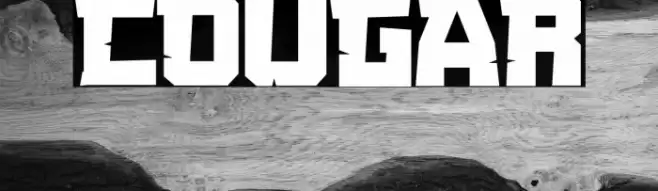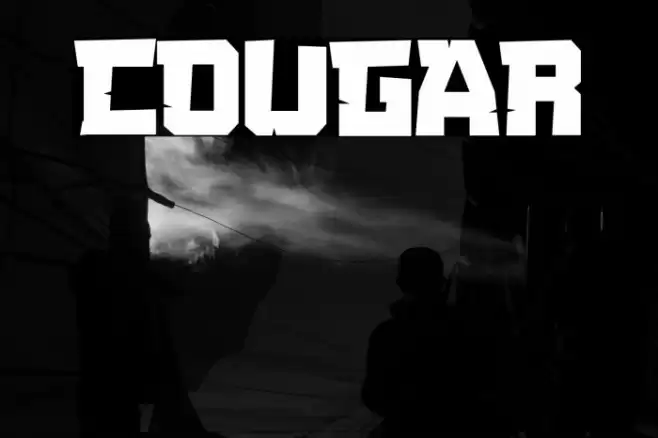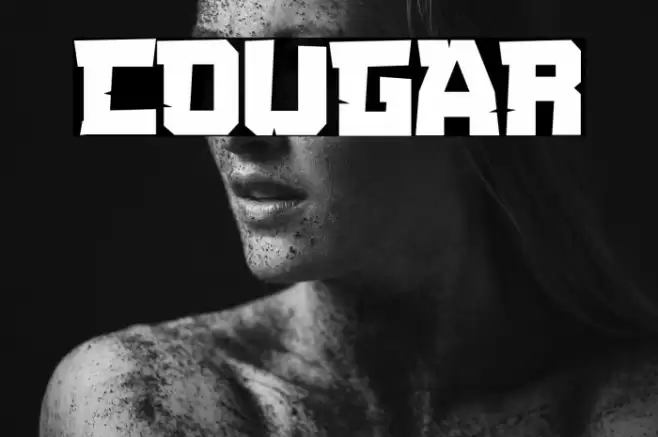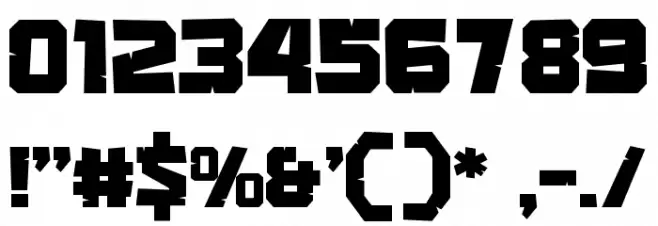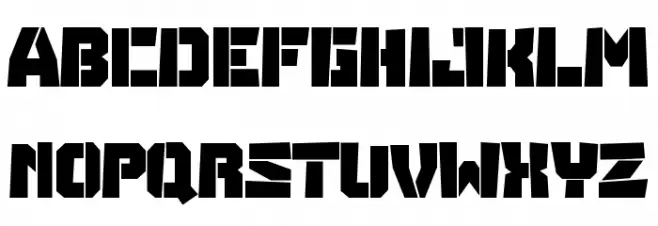
COUGAR Font
COUGAR Description
This font features a bold and angular design with a strong geometric influence. Each character is constructed with sharp edges and block-like forms, creating a sense of strength and modernity. The uppercase letters are particularly striking, with a uniform height and width that contribute to a cohesive look. The numerals and special characters maintain this bold aesthetic, ensuring consistency across all glyphs. The font's unique style makes it stand out, ideal for projects that require a strong visual impact.
A bold, angular font with a geometric and modern design from Cartoon fonts.
- Proposed Projects: Ideal for branding, posters, and headlines that require a strong, impactful presence.